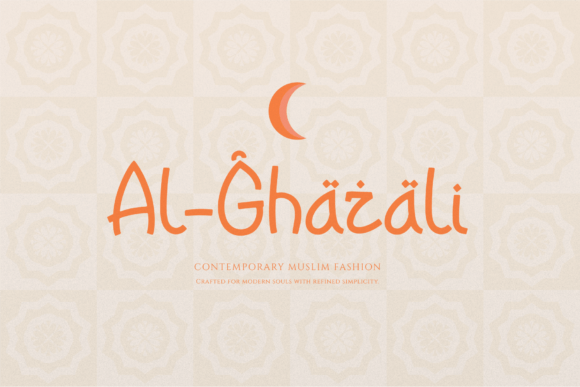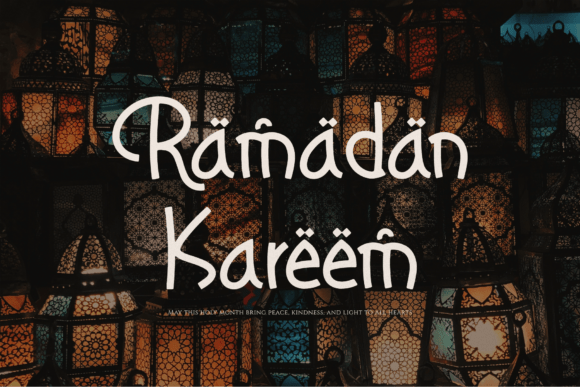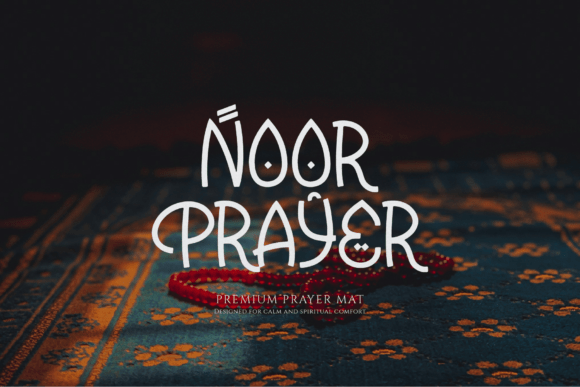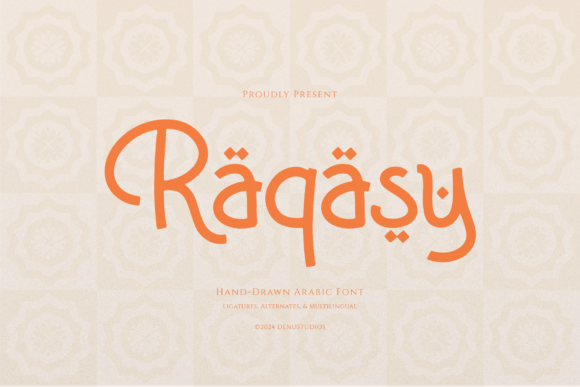
Introduction to Raqasy Font
Infuse your projects with the rhythmic beauty of Raqasy, a stunning hand-drawn Arabic-style typeface.
This font masterfully blends the flowing, calligraphic tradition of Middle Eastern script with a friendly, artisanal touch Featuring rounded terminals and a playful monolinear stroke, Raqasy radiates an approachable yet exotic energy.